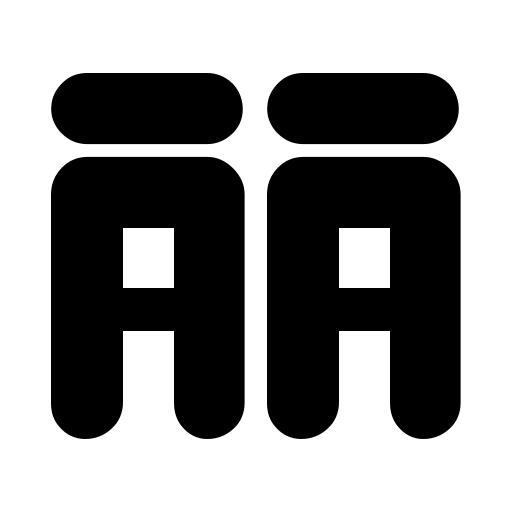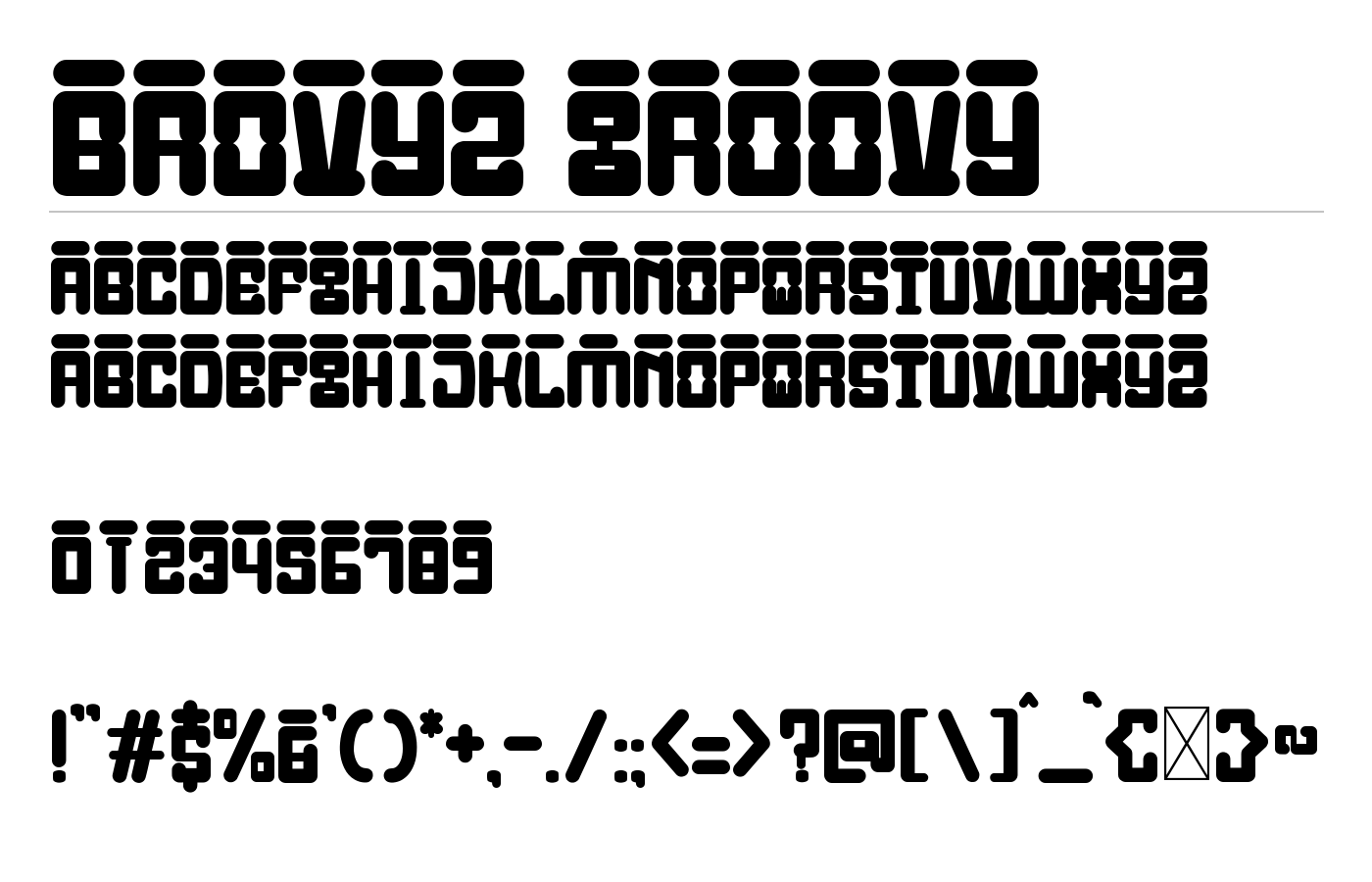
Brovyz Groovy is a bold, playful sans serif font with a unique, rounded rectangular style that gives it a retro, almost futuristic vibe. Its thick, consistent strokes and quirky shapes make it perfect for eye-catching logos, posters, and packaging where a fun and distinctive personality is needed. This font’s standout character shapes and strong presence work best in display settings rather than body text, making it ideal for brands that want to make a groovy, memorable impression.
Brovyz Groovy Font
About Brovyz Groovy Font